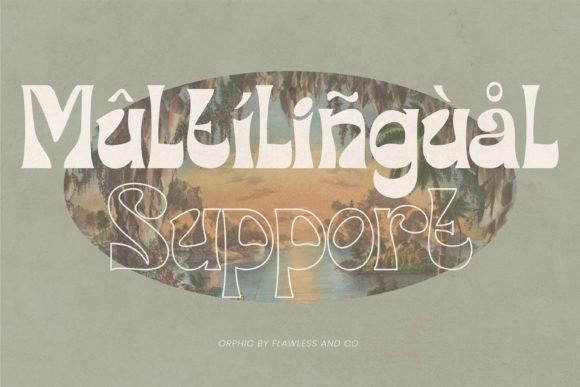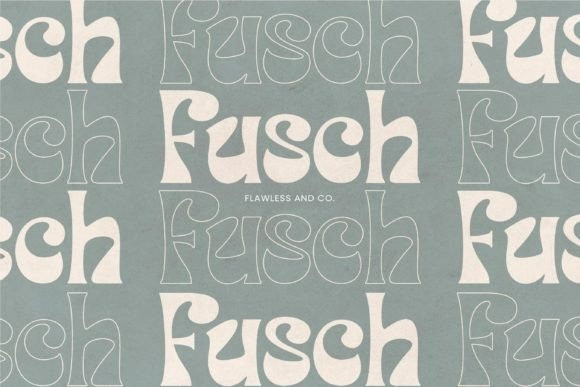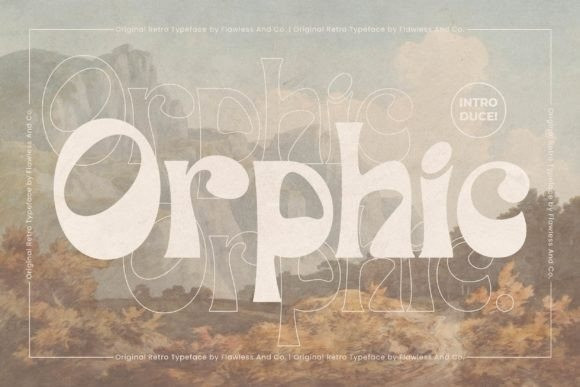
ORPHIC TYPEFACE
Orphic Typeface is a display retro font with a fun and bold style. This font is perfect for your boho-themed projects such as posters, branding materials, t-shirts, business cards, logos, photography, quotes, and more.